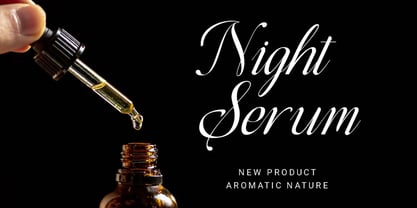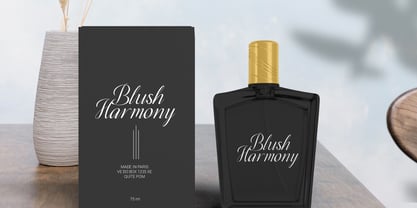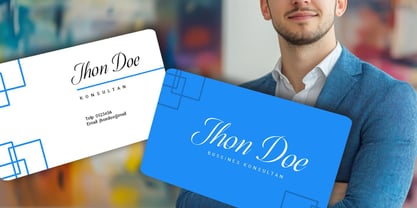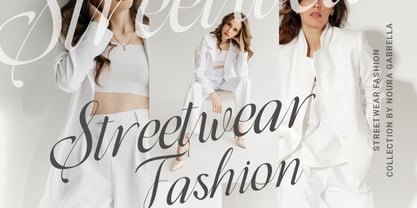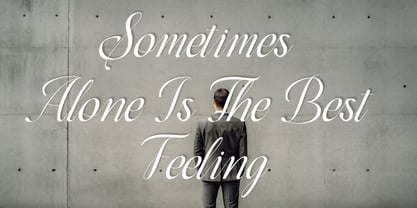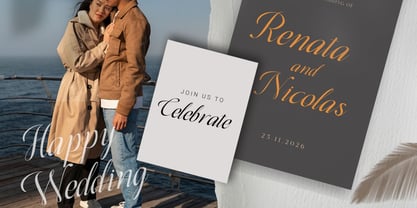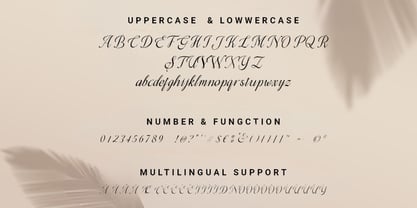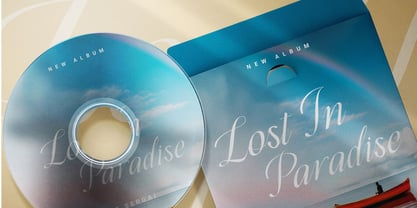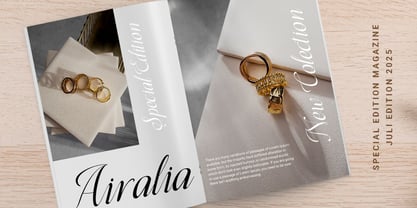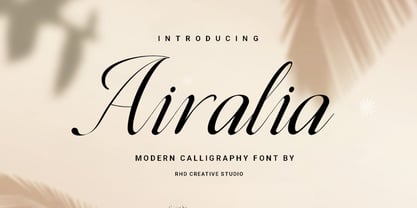
Airalia
Hello everyone, I would like to introduce Airalia - Modern Calligraphy Font.
Airalia - Modern Calligraphy Font with Handmade character. Airalia - Modern Calligraphy Font , Modern font to make your design project stand out! Airalia is a perfectly choice for any creative endeavor, creating, modern, chic, lifestyle design such as logotype, title, cover, branding, invitations, wedding designs, display and magazine, social media posts, advertisements, printed quotes, product packaging, corporate brand, product designs, labels, photography, watermarks, special events and any other project with modern touch.